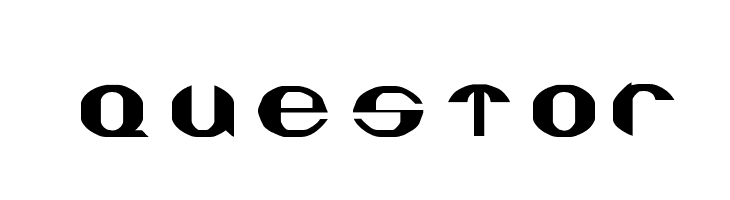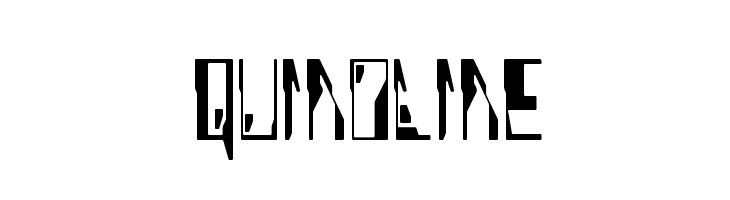
( Fonts by Divide By Zero! - fonts.tom7.com )
A playful, hand-drawn font with bold, irregular characters.
A bold, geometric font with a modern, industrial style.